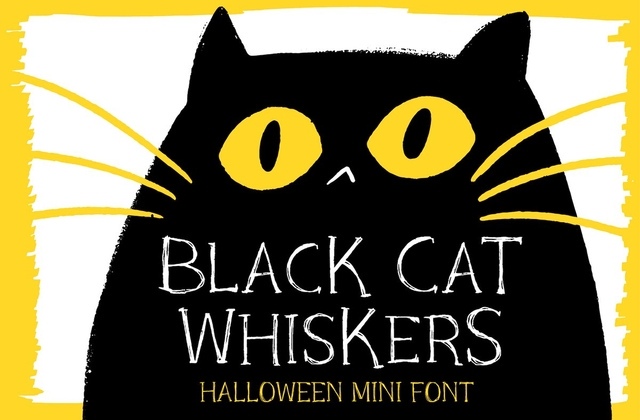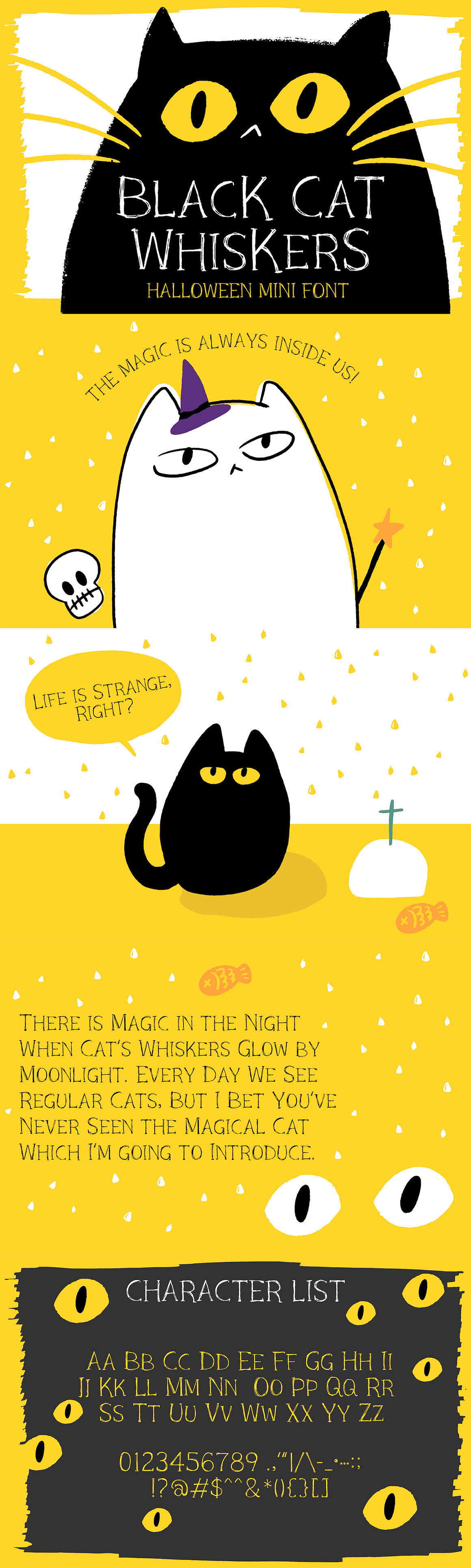
Black Cat Whiskers - Halloween Serif Font
The Black Cat Whiskers Font is a spooky and playful serif typeface that perfectly captures the spirit of Halloween. Its whimsical, slightly wobbly letterforms and charmingly irregular style make it an excellent choice for a variety of festive projects. This font is perfect for creating eerie party invitations, spooky product packaging, fun social media graphics, and creative posters for haunted house events. The Black Cat Whiskers Font's unique character makes it a favorite among designers looking to add a touch of playful horror and seasonal charm to their work.
What makes the Black Cat Whiskers Font so exciting is its ability to instantly set a fun and festive mood. The quirky, hand-drawn aesthetic gives your design a sense of genuine personality, making your message resonate with audiences of all ages. This isn't just a font; it’s a design element that captures the essence of Halloween, ensuring your project stands out with a unique and memorable identity. Its clean lines and clear structure maintain a surprising level of readability, even in complex layouts.
The Black Cat Whiskers font family is designed for maximum impact, providing a complete set of uppercase and lowercase letters, numbers, and punctuation. While it's primarily designed as a display font, its clean lines and clear structure maintain a surprising level of readability, even in complex layouts. This full-featured family gives you all the tools you need to create a cohesive and powerful design.